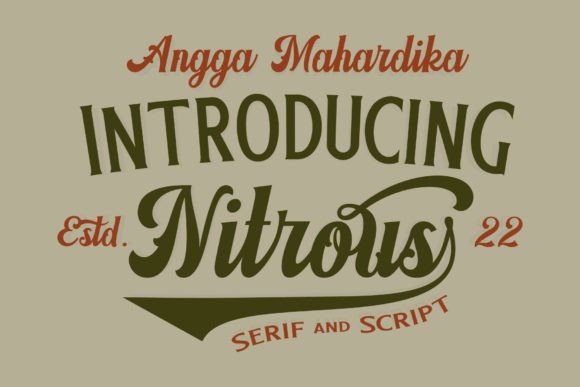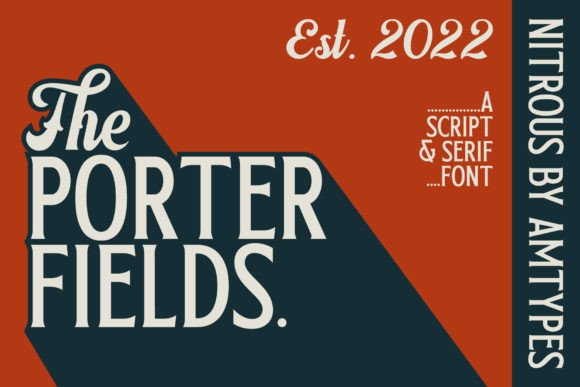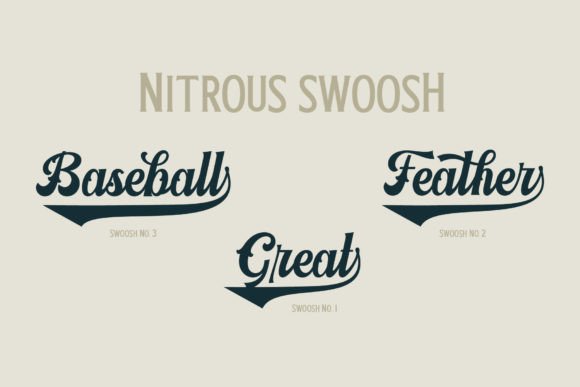
About Nitrous
Nitrous is a script and serif typeface with elegance and vintage looks. This font has some of alternate characters, swashes and ligatures. You can design beautiful, elegant and diverse typographic elements with it. This font duo is effective on product packaging, particularly for wares that prefer a handcrafted, artisan approach to their finished presentation. Nitrous is ideal for strong branding, identity, and logo design, as its letter forms effortlessly express a tone of familiarity, reliability, and timelessness.